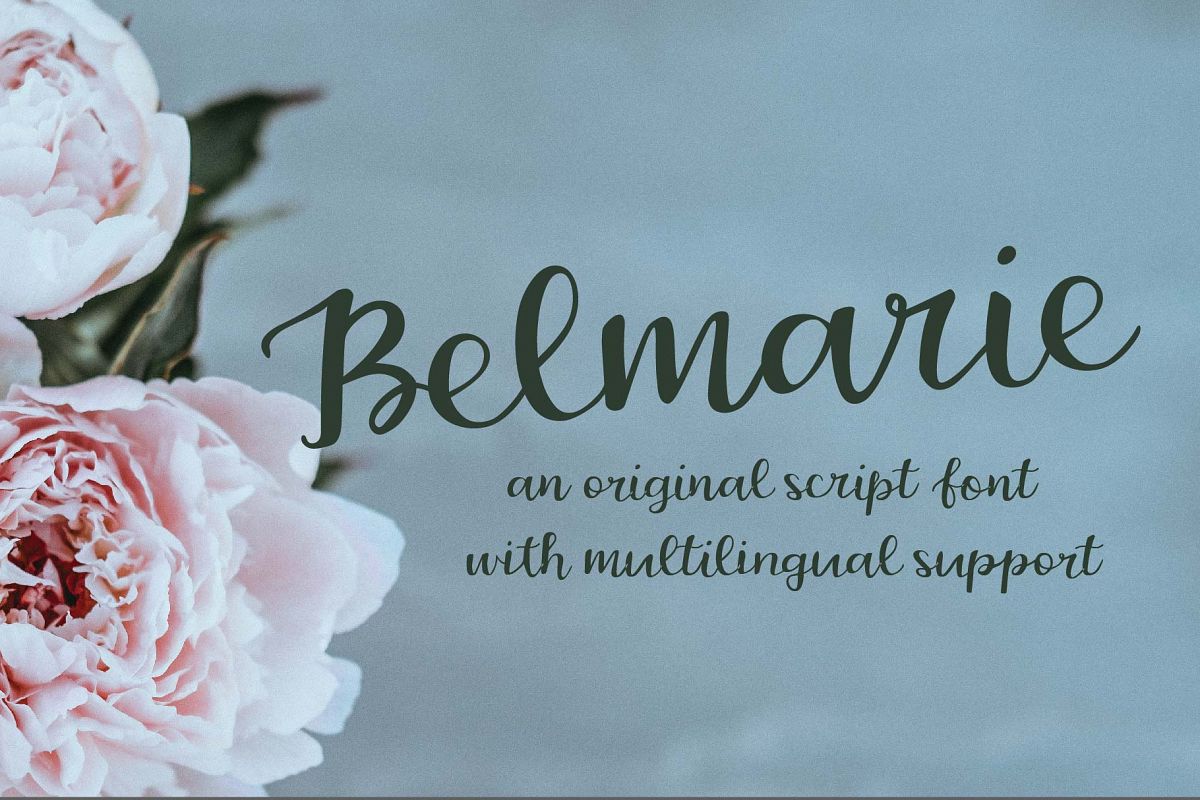
Belmarie Script
Introducing Belmarie Script, a romantic handlettered font.
Belmarie includes standard ligatures to add depth and interest to your designs. Belmarie also contains multilingual support with accented characters for international (Western European, Central European and South Eastern European) users. Simply access them through the Glyphs palettes in programs like Illustrator or InDesign. If you don't have these programs, you'll still have access to all of the standard and international characters.